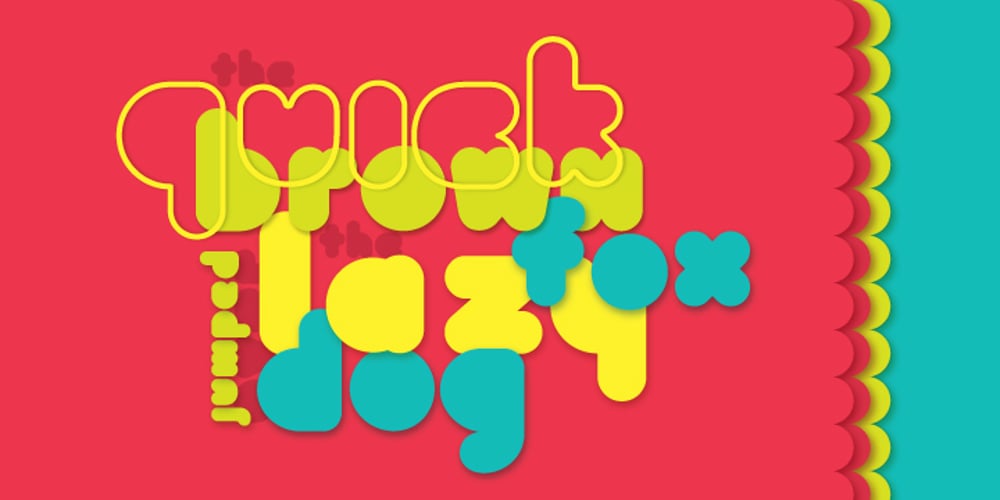
Bolha
Bolha font
Bolha Font Family was designed by published by Oporto Design. Bolha contains 2 styles and family package options. Bolha is a fun geometrical font which comes in two variants: Filled and Outline. Combine them or use them alone, just remember to have fun with it.